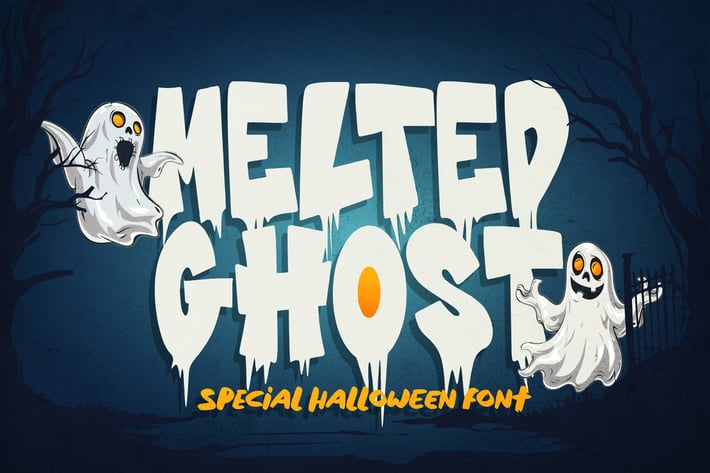
Melted Ghost - Special Halloween Font
Melted Ghost is the ultimate Halloween font that oozes with eerie charm. Designed to bring a spooky vibe to your seasonal projects, this font blends playful creepiness with a unique, drippy effect that feels like it's straight out of a haunted house.
π Spooky Aesthetic: With its melting, ghostly letters, Melted Ghost captures the essence of Halloween. Perfect for everything from party invitations to creepy decorations, this font adds a chilling atmosphere to any design.
π» Versatile Use: Whether you're designing for kids or adults, Melted Ghost fits the bill. Its playful yet eerie style works well for all kinds of Halloween-themed projects, making it a versatile choice for both fun and frightful designs.
πΈοΈ Eye-Catching Style: The bold, dripping effect of Melted Ghost ensures your text stands out. It's a font that demands attention, making it ideal for headlines, posters, and any design where you want to create a haunting impact.
Melted Ghost is your go-to font for adding a touch of spooky fun to your Halloween creations, perfect for making your designs both memorable and mysteriously eerie.